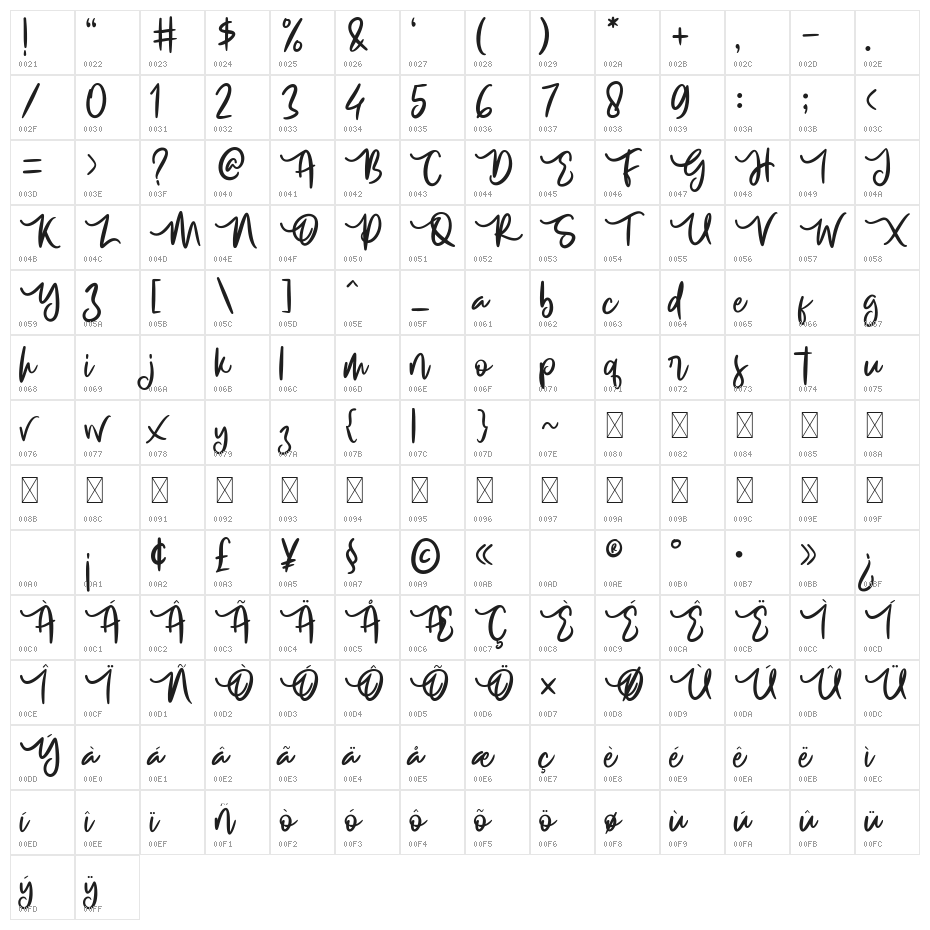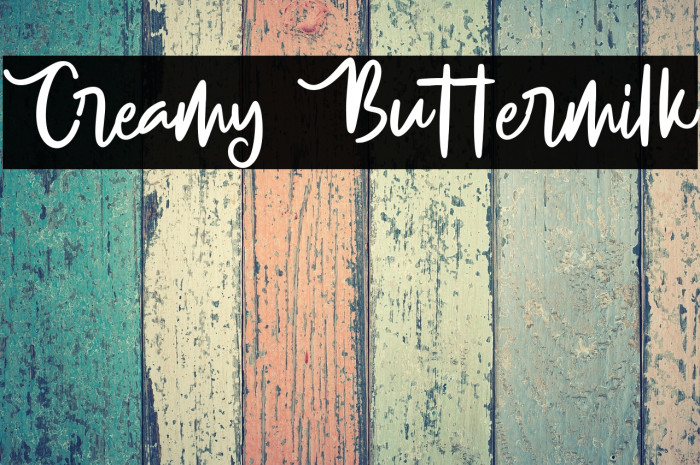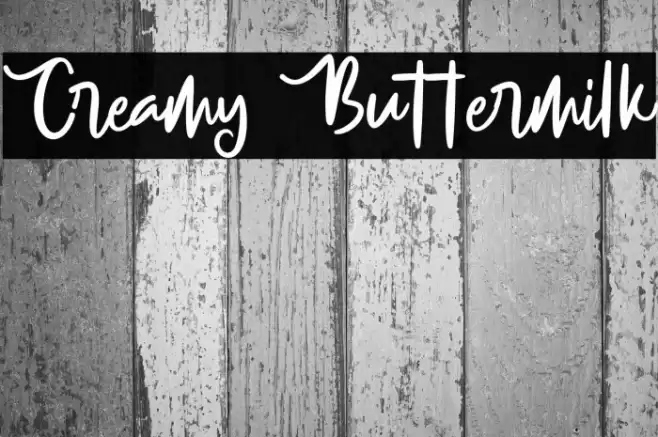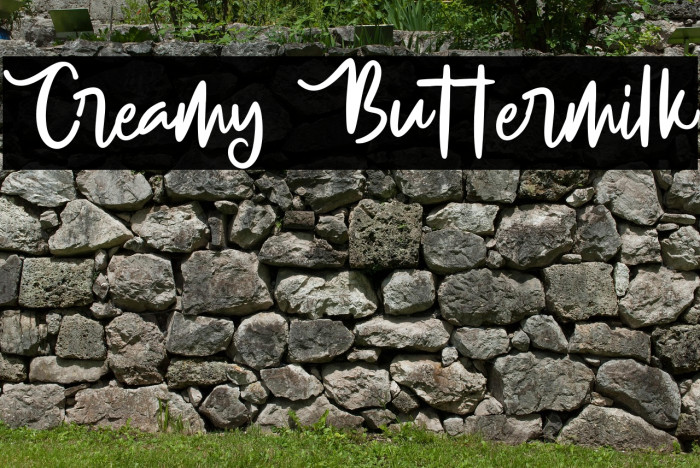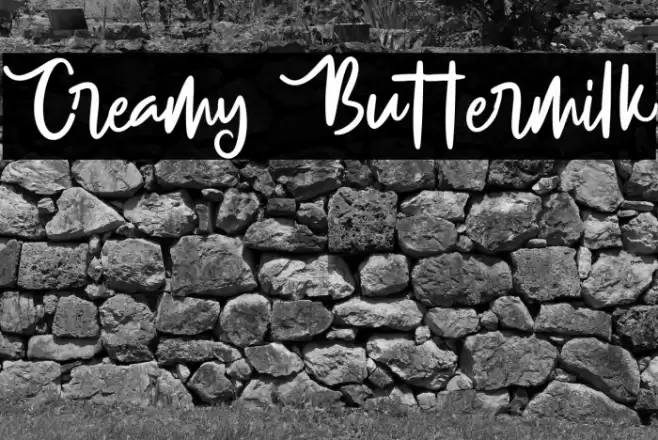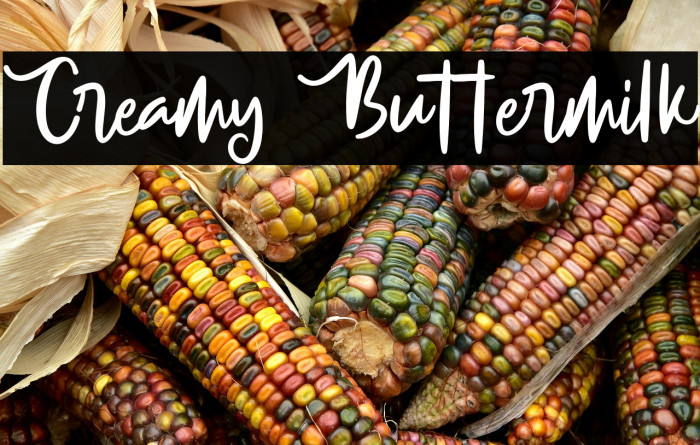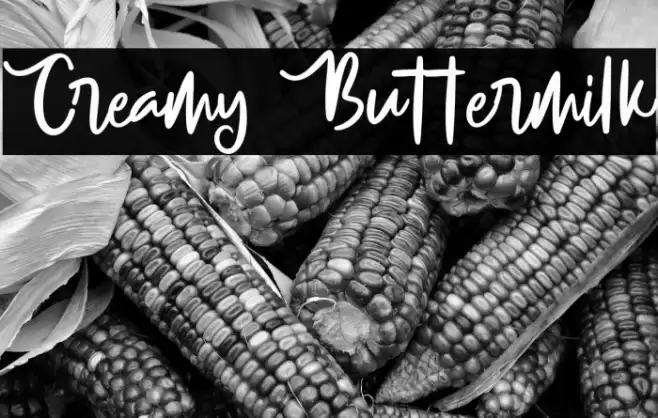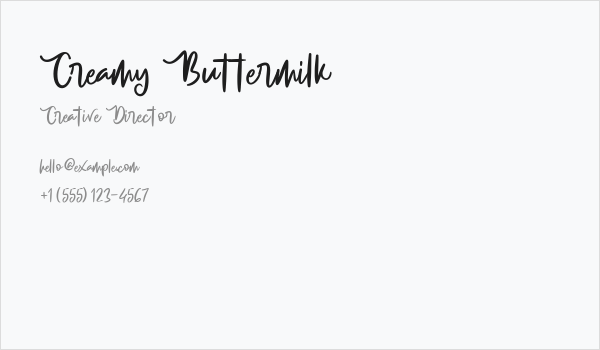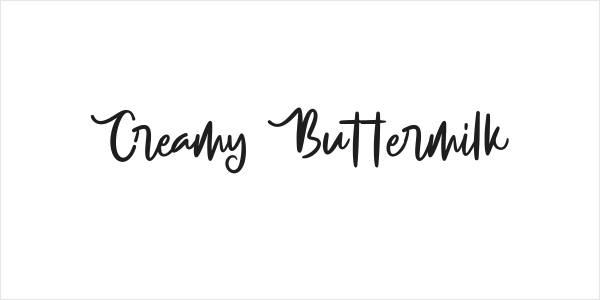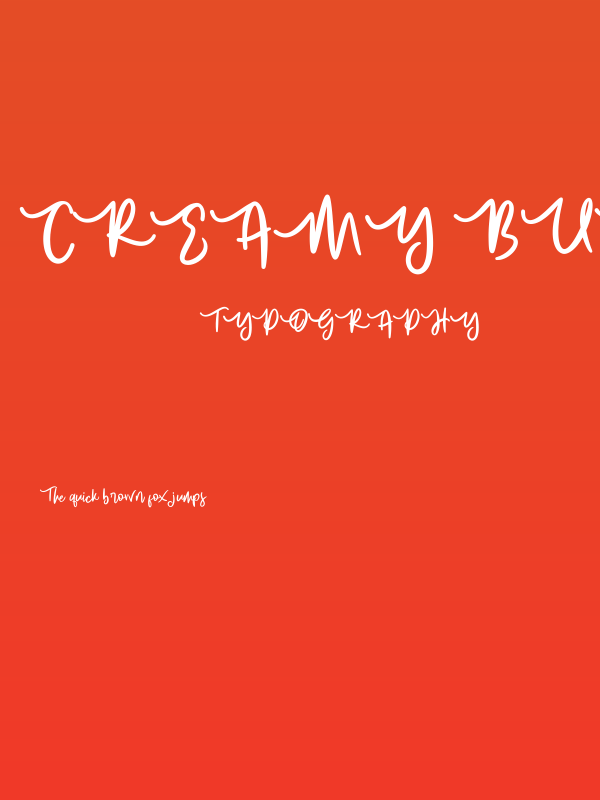
Creamy Buttermilk Font
Creamy Buttermilk Description
This font exudes a playful and energetic vibe, characterized by its flowing, cursive style. The letters are connected in a smooth, continuous manner, giving it a handwritten appearance. The strokes are bold and confident, with a slight variation in thickness that adds to its dynamic feel. The uppercase letters are elegantly looped, while the lowercase letters maintain a consistent flow, enhancing readability. Numbers and special characters are crafted with the same lively spirit, making them stand out. This font is perfect for projects that require a personal touch, such as invitations, greeting cards, or branding materials.